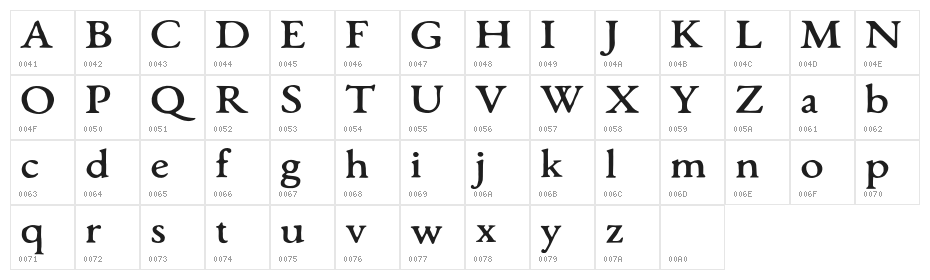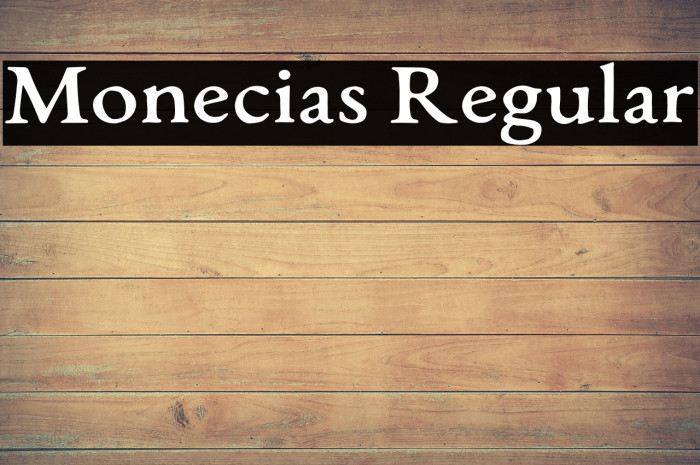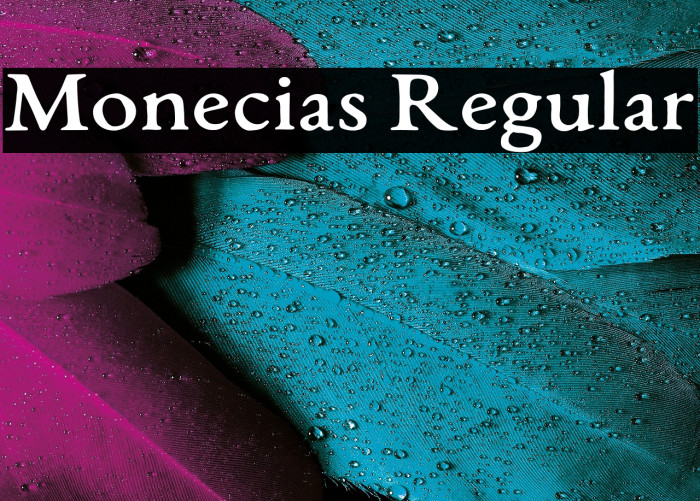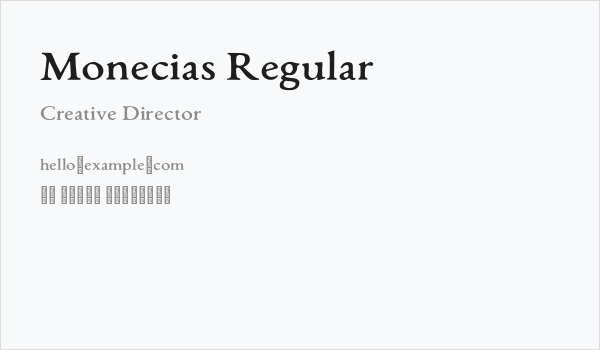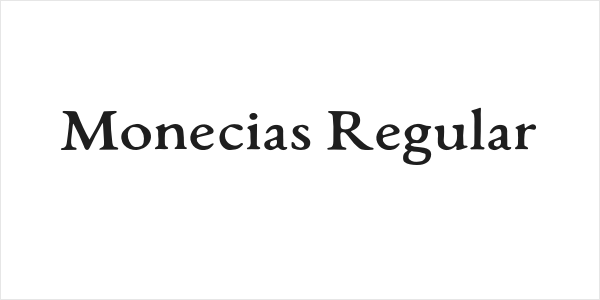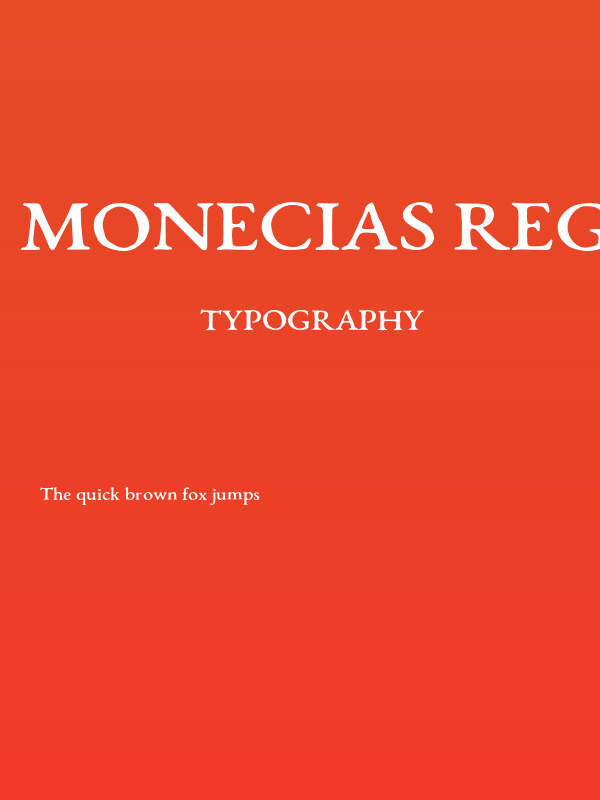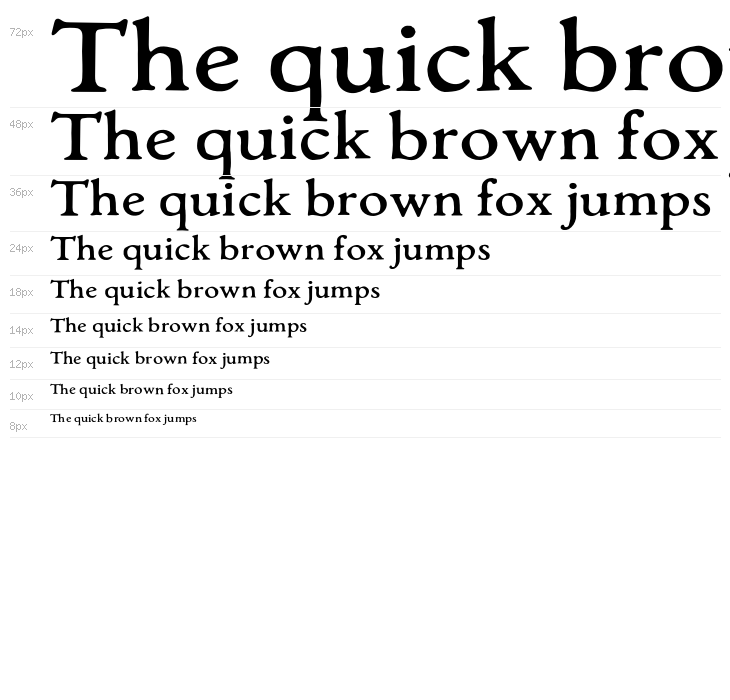
Monecias Regular Font
Monecias Regular Description
This typeface features a classic serif design with a touch of elegance and sophistication. The uppercase letters are bold and commanding, with a slight curvature that adds a unique flair. The lowercase letters maintain a consistent style, offering a harmonious balance between tradition and modernity. The font's overall appearance is clean and legible, making it suitable for a variety of applications. The absence of special characters suggests a focus on simplicity and functionality. The strokes are moderately thick, providing a medium contrast that enhances readability without sacrificing style.
| Use Case | Headlines, Body text |
| Proposed Projects | Ideal for book covers, editorial design, branding, and formal invitations. |